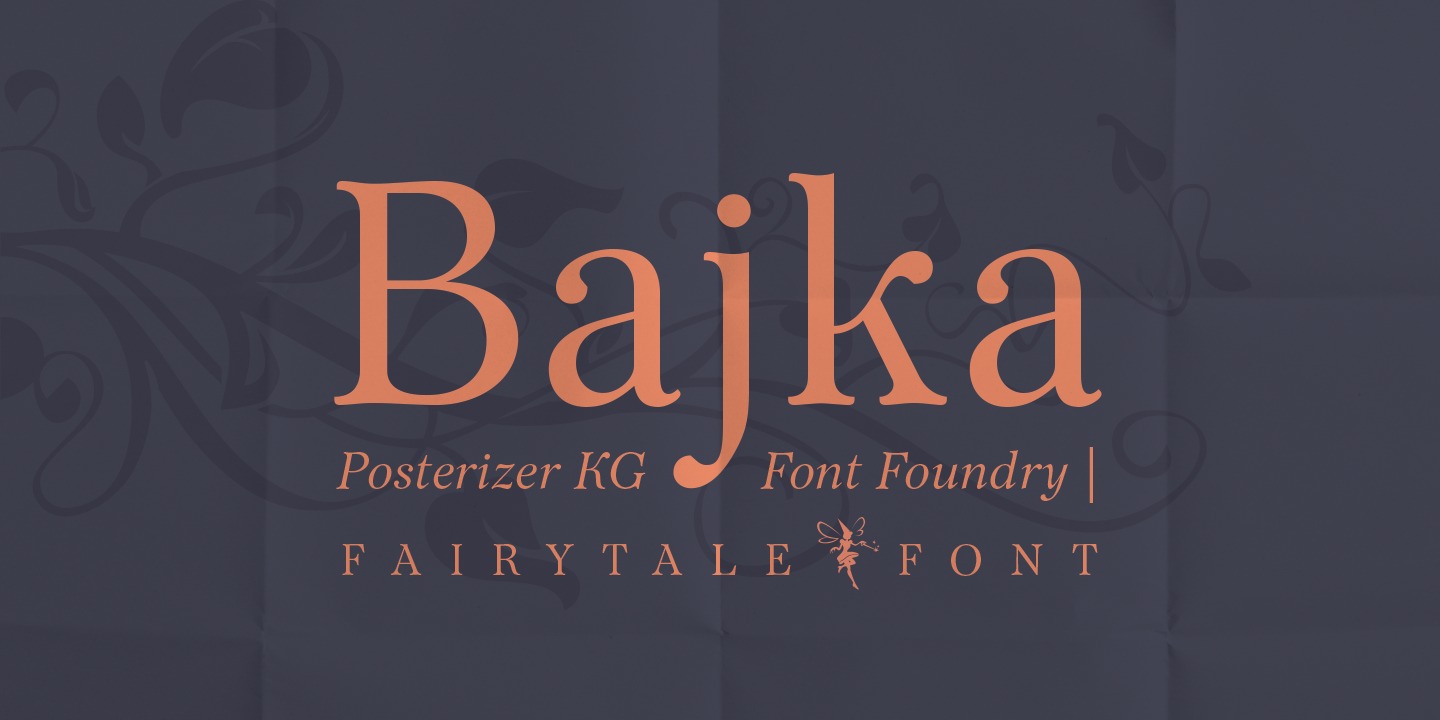
Bajka Font Family
Bajka Font Family is a premium-quality font developed to enhance your work with a polished, modern, and visually elevated look. Bajka (or Fairy tale in English) is a Baskerville font family made for children’s fairy tale books. Originally designed in 2010. Today the family contains Regular, Bold, Italic, Bold Italic, Symbols and Ornaments (Latin, Cyrillic, dingbats, ornamental caps).